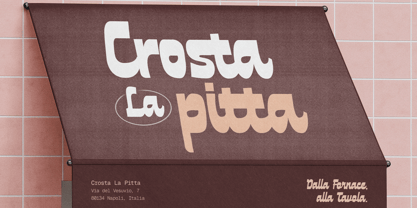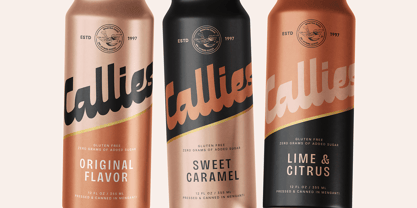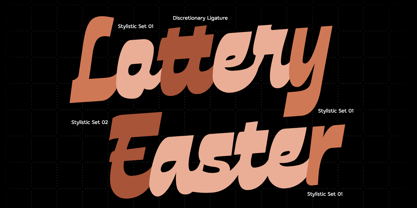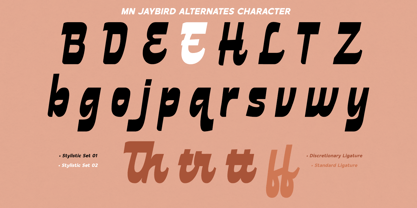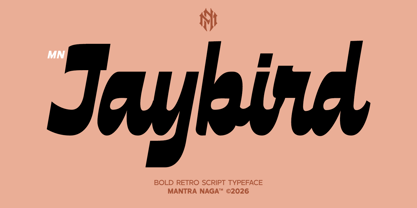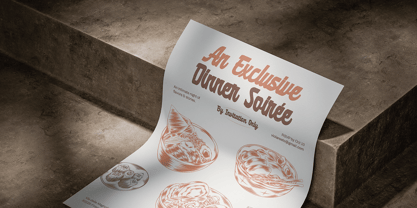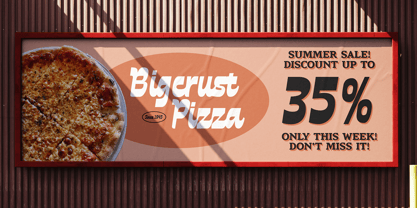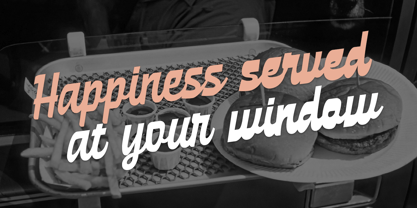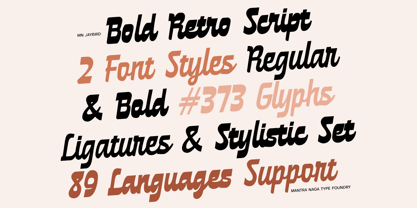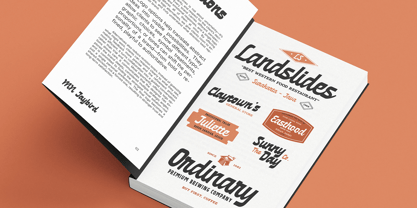
MN Jaybird
The MN Jaybird Font Family was designed by Fredo Eka Pratama and published by Mantra Naga Studio. MN Jaybird contains 2 styles and family package options. More about this family
Jaybird is a retro script typeface inspired by 1950s–70s American diner signage, hand-painted storefront lettering, and classic roadside typography. Designed to embody the warmth and bold spirit of vintage Americana, this typeface features smooth curves, confident strokes, and a playful rhythm that instantly evokes nostalgic charm. Ideal for retro branding, diner and café logos, packaging, merchandise, and vintage poster design, Jaybird offers a strong personality while ensuring clear readability. This vintage script typeface is perfect for brands looking to stand out with warmth, character, and a timeless roadside feel, making it a versatile choice for various creative projects.